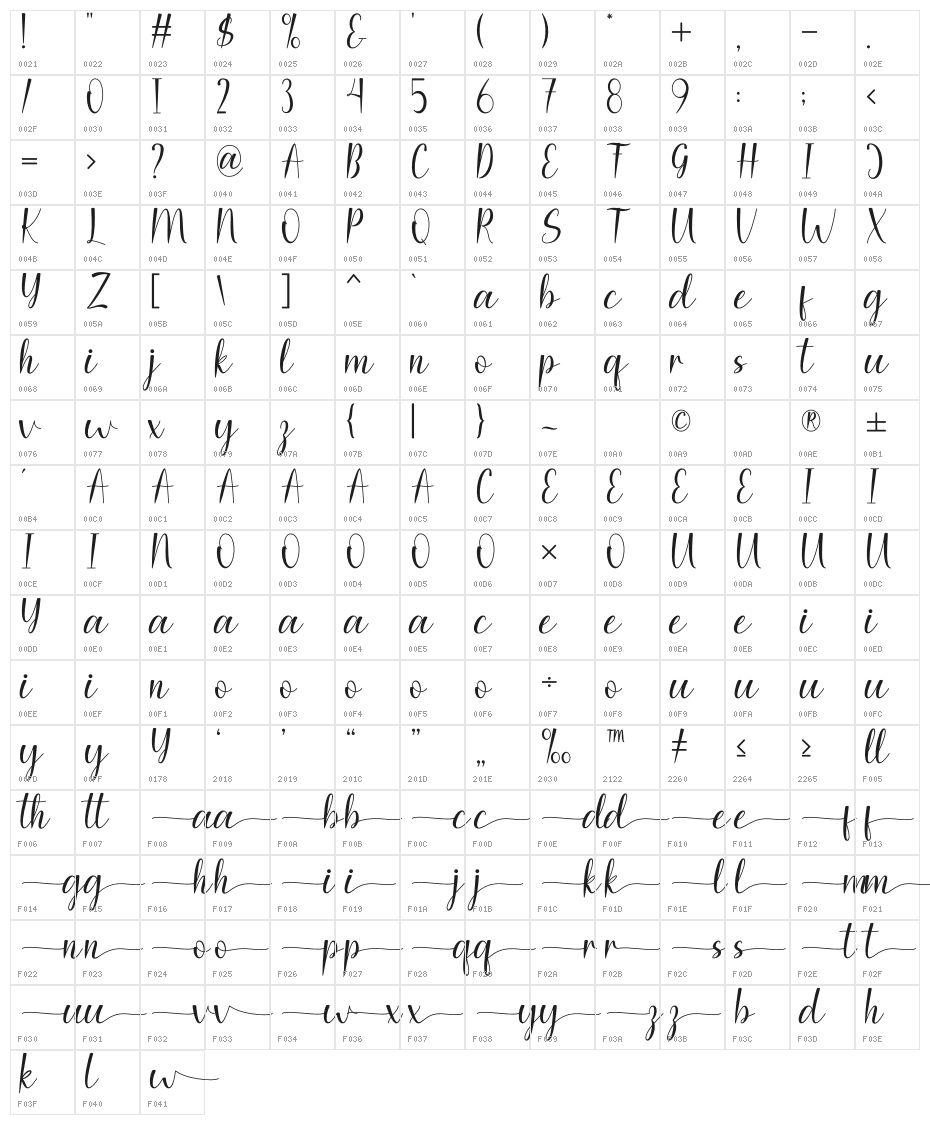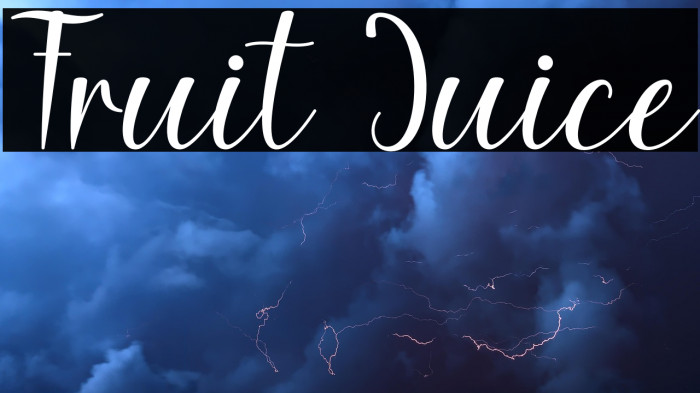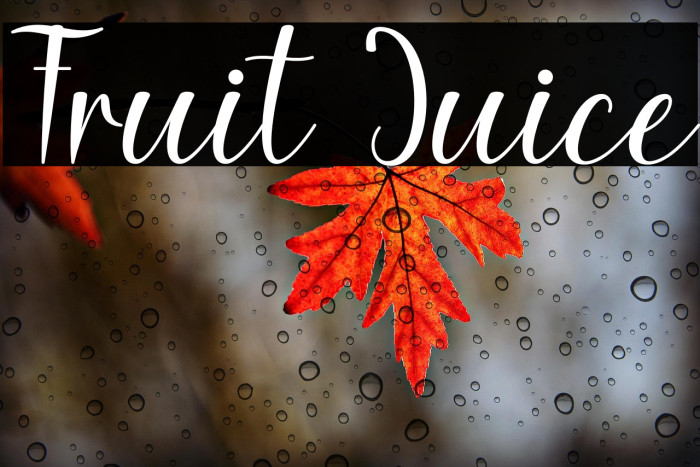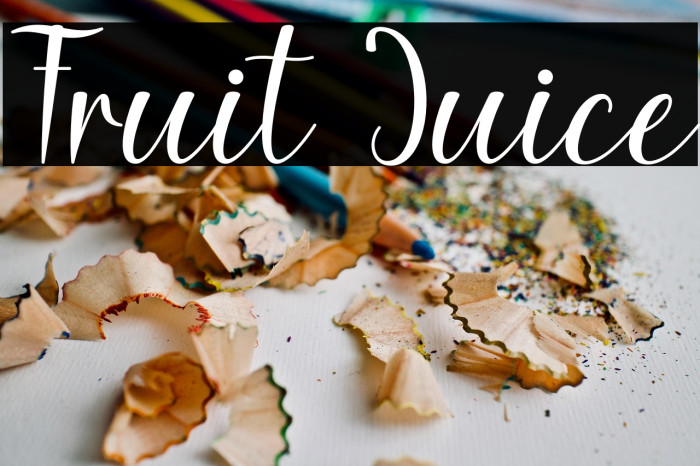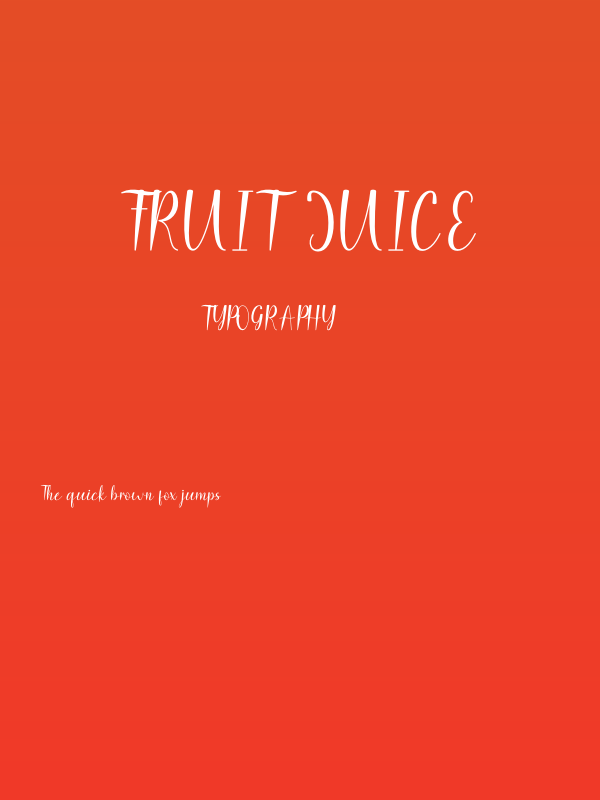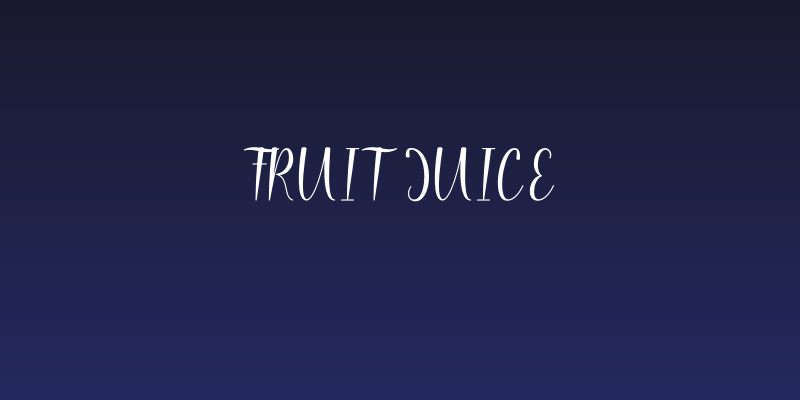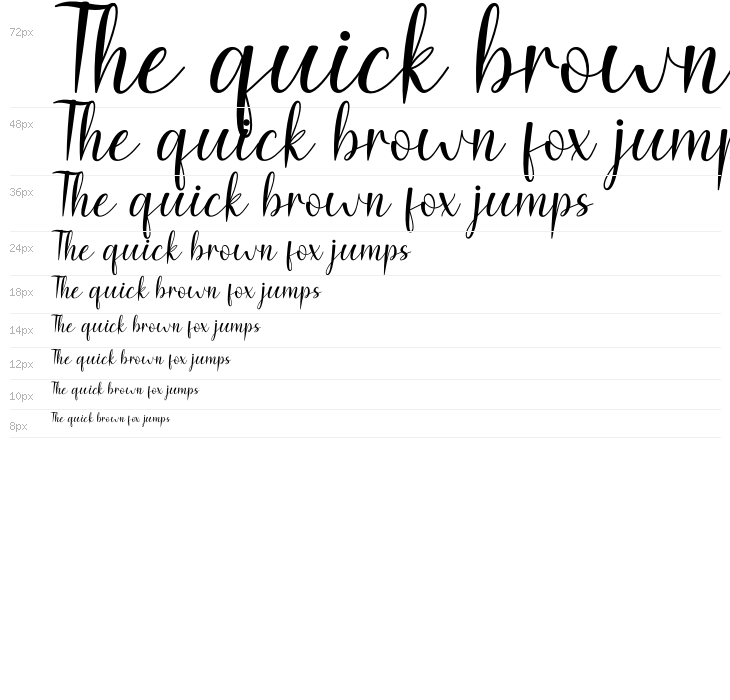
Fruit Juice Font
Fruit Juice Description
This font features a playful and energetic script style with a modern twist. The uppercase letters are tall and slightly narrow, with a whimsical flair that adds a sense of movement and dynamism. The lowercase letters maintain a consistent flow, with smooth curves and elegant loops that enhance its handwritten appeal. The numerals are distinctive, with a mix of straight and curved lines that complement the overall style. Special characters are creatively designed, adding to the font's versatility. This font is ideal for projects that require a lively and engaging aesthetic.
| Proposed Projects | Perfect for branding, invitations, greeting cards, and playful editorial designs. |